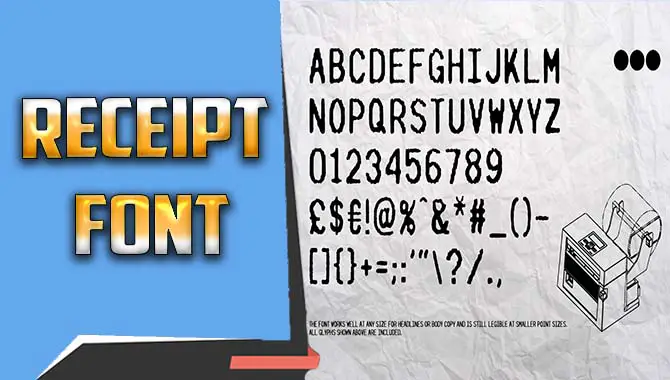
Having a receipt font is essential for any small business. Whether running an online shop or a brick-and-mortar store, you must keep track of your expenses and payments.
Receipt fonts let you do just that without compromising on the aesthetic appeal of your brand. They help you keep track of payments, reduce fraud, and create a consistent customer experience. Fake receipt fonts are created to look like real handwritten receipts.
However, they have all the hallmarks of being genuine, such as faded ink and uneven edges. Designing a receipt can be a tedious task. However, it can be made easier with the help of these free receipt fonts. They are designed to facilitate designers and people who want to draw attention to their work. We’ll cover everything you need to know about using these free fonts for designing receipts. We’ll also tell you how to use fake receipt font in your designs.
Unlock Your Creativity With These Fake Receipt Font
Do you want to add a touch of creativity to your designs? Fake receipt fonts can help you with that. There are many free receipt fonts available for personal or commercial use. BM Receipt font offers a variety of colors and text effects to choose from, making it easier to customize your designs.
The Fake Receipt font from Typodermic Fonts has a dotted style, giving it a unique look. In addition, there are 30 typewriter fonts available that you can use to create a nostalgic effect. Modify and redistribute receipt fonts to adapt them to your design needs and unlock creativity. With these free receipt fonts, adding that perfect design element to your projects has never been easier.
1. Fake Receipt-Regular
Fake Receipt is a free font perfect for creating designs that resemble print from a typical, late 20th Century cash register. The font, created in 1999, includes fractions and numeric ordinals, making it ideal for various design needs. In addition to its retro look and feel, Fake Receipt also supports multiple languages and was the first font of the Millennium. One of the great features of this font is that its vertical metrics have been improved for better web performance.
2. Fake Receipt
Fake Receipt font is a lo-fi, bitmap font that resembles the print from a typical late 20th centur20th-century. Created by Typodermic in 1999, this font supports multiple languages, including fractions and numeric ordinals, making it a versatile option for any designer. The font is available for free commercial use with a desktop license.
3. Grumpybutt
If you want to add a touch of authenticity to your design, Grumpybutt Receipt Font may be just what you need. This fake receipt font is available for download in TTF format and includes 68 characters and a character map. Created by Typodermic in 1999, the font resembles print from a late 20th-century cash register, making it perfect for retro designs.
Not only does Grumpybutt Receipt Font have a nostalgic vibe, but it also supports multiple languages, numeric ordinals, and fractions. The font features improved metrics for better web performance and includes a free desktop license for commercial use. With Grumpybutt Receipt Font, you can add a fun and unique touch to your design projects.
4. Straphanger
If you want to add creativity to your design, use the free Fake Receipt font. This font is available for download in TTF format and imitates the vintage look of cash register print from the 20th century. Created in 1999, Fake Receipt supports multiple languages and includes fractions and numeric ordinals, with improved web performance.
You added this font in May 2009 with 196 characters with font-specific encoding. You can use it for commercial purposes with a desktop license agreement. One specific font in this collection worth mentioning is Straphanger. With its bold and easily readable style, Straphanger can add a distinct touch to any design project. Don’t settle for generic fonts: unlock your creativity and make the perfect design with Fake Receipt font.
5. Wida Round Smallcaps Demo
Unlock your inner creativity with these free receipt fonts that will take your designs to the next level. Wida Round SmallCaps Demo is one such font that offers a variety of unique and professional-looking receipt designs. This font lets you easily create receipts, labels, or any other document type. It’s perfect for creating modern, stylish designs that catch the eye.
5.How Can I Find A Good Receipt Font For My Company?
Ans: If you’re looking for a good receipt font to customize to match your print effect needs, you may consider using ReceiptFont.com. This website provides downloadable receipt fonts in different formats (bitmap, lo-fi font, and TrueType) and instructions on how to use them for printing purposes.
Furthermore, if you need help finding the type of font used on store receipts, OCR B may be a suitable substitute. OCR B is a more condensed version of the BM Receipt font commonly used on store receipts.